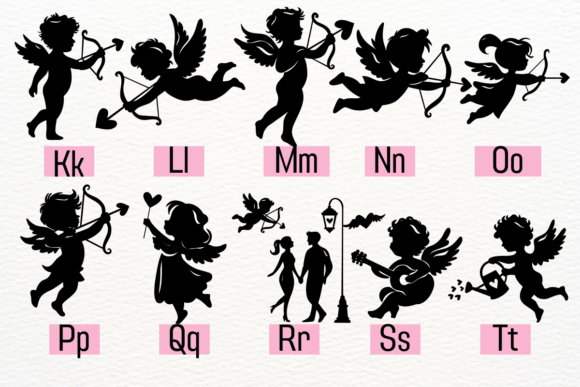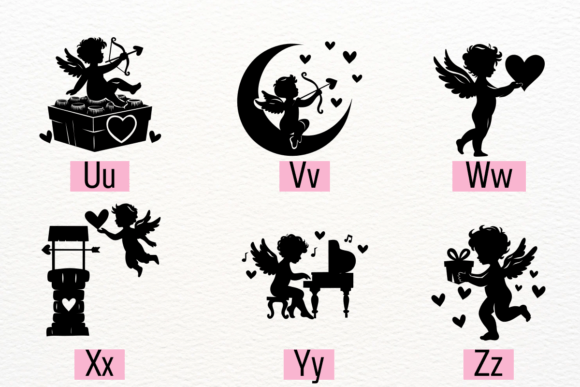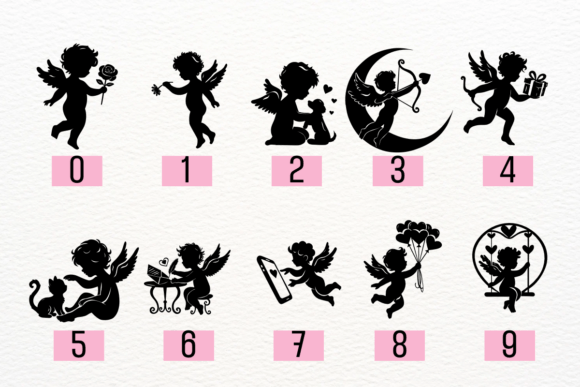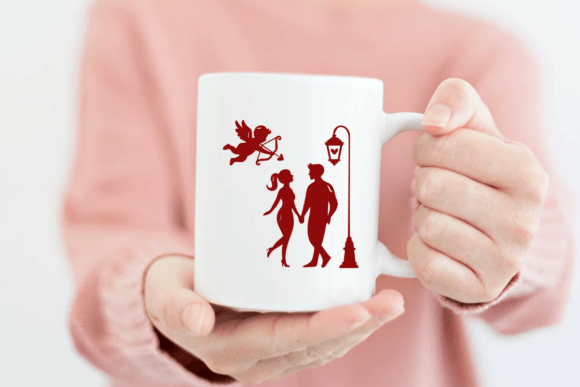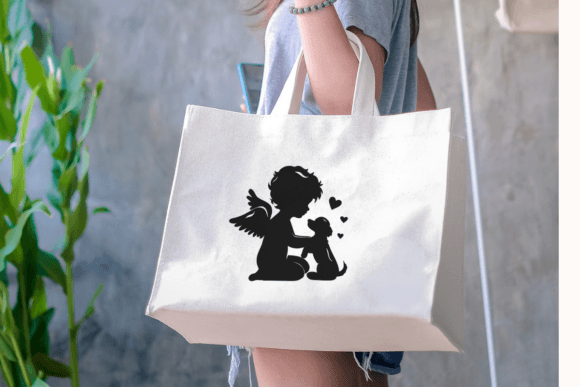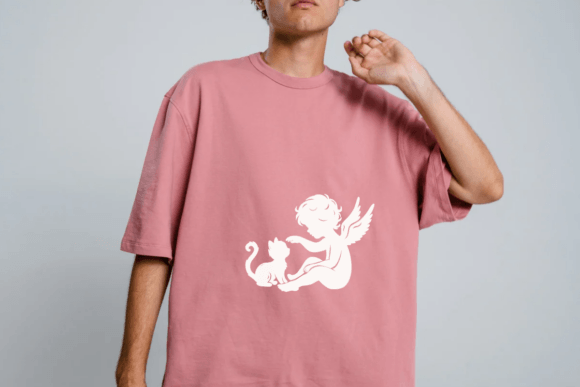
Love at First Sight: The Cupid Font
As designers, we’ve all been there – staring at a blank canvas, waiting for that spark of inspiration to strike. For me, it was a Valentine’s Day project gone wrong. I had a deadline to meet, and my designs just weren’t conveying the love and romance I wanted to express. That’s when I stumbled upon the Cupid Font, and everything changed.
This charming dingbats font features Cupid silhouettes in playful and loving poses, making it the perfect addition to any romantic design. Whether you’re creating Valentine’s Day cards, wedding invitations, or just want to add a touch of whimsy to your projects, the Cupid Font is a must-have. As designers, we’re always on the lookout for tools that make our jobs easier and our designs more beautiful – and the Cupid Font delivers.
- Unique Characteristics: Cupid Font features a unique, hand-drawn style with intricate details and flourishes, adding a touch of elegance and sophistication to any design.
Cupid Font Review
As a designer, I was excited to dive into the Cupid Font and see what it had to offer. Here are my thoughts on this font:
- The Cupid Font has a lovely, whimsical feel to it. It’s perfect for creating a romantic or playful atmosphere.
- The font’s unique, handwritten style makes it stand out from more generic fonts.
- The Cupid Font comes in a range of weights and styles, making it easy to find the perfect fit for your design.
- The Cupid Font may not be the best choice for body text, as it can be difficult to read at smaller sizes.
- The font’s ornate design may not be suitable for designs where simplicity is key.
- The Cupid Font may not be as versatile as some other fonts, making it less suitable for a wide range of design projects.
The Cupid Font is a beautiful, unique font that’s perfect for adding a touch of romance or playfulness to your designs. While it may have some limitations, it’s a great choice for designs where you want to make a statement or create a special atmosphere. I’d recommend it for titles, headings, and other design elements where you want to add some personality.
Tips for Getting the Most Out of Cupid Font
Use Cupid Font for romantic and whimsical designs, such as wedding invitations, Valentine’s Day cards, and love-themed graphics. Experiment with different font sizes, colors, and combinations to create unique and eye-catching designs.
Cupid Font is perfect for creating romantic and whimsical designs, including:
– Wedding invitations
– Valentine’s Day cards
– Love-themed graphics
– Handwritten-style quotes and phrases
– Whimsical illustrations and designs